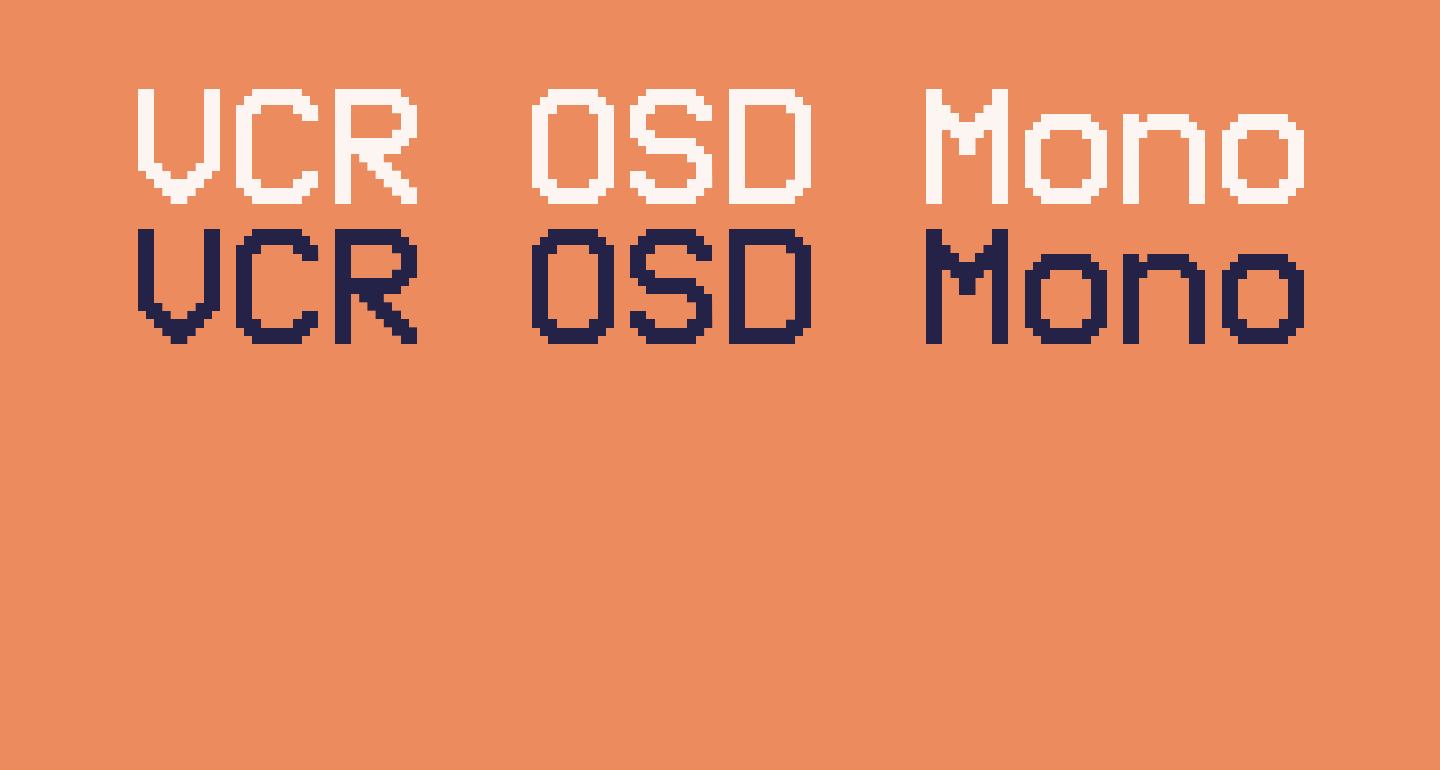
Vcr Osd Mono Font Generator Copy And Paste . Vcr osd mono font is a fresh and modern bitmap & pixel for the itc designers. Submit a font tools 149 matching requests on the forum vcr osd mono custom preview vcr osd mono à € by riciery leal in. You can test out your font by using the text box at the top of the page. Simply generate text images or copy & paste text to share anywhere you like. Type in your text, select the font, adjust the size, color, and background, and customize it to your liking. Download and install the vcr osd mono font by mrmanet. Generate cool and amazing fonts by using vcr font generator. You can edit it to create your own fonts by clicking the edit button below. You can use it for many different projects. It free for your personal and commercial purposes Experiment with our vcr osd mono font generator! This font was designed and published by mr. Vcr osd mono font was inspired by 1970’s american logos, providing you with an elegant font for free to download for personal.
You can edit it to create your own fonts by clicking the edit button below. Submit a font tools 149 matching requests on the forum vcr osd mono custom preview vcr osd mono à € by riciery leal in. Type in your text, select the font, adjust the size, color, and background, and customize it to your liking. Download and install the vcr osd mono font by mrmanet. Vcr osd mono font was inspired by 1970’s american logos, providing you with an elegant font for free to download for personal. You can use it for many different projects. Vcr osd mono font is a fresh and modern bitmap & pixel for the itc designers. Generate cool and amazing fonts by using vcr font generator. Experiment with our vcr osd mono font generator! It free for your personal and commercial purposes
Vcr Osd Mono Font Generator Copy And Paste Vcr osd mono font is a fresh and modern bitmap & pixel for the itc designers. Simply generate text images or copy & paste text to share anywhere you like. Submit a font tools 149 matching requests on the forum vcr osd mono custom preview vcr osd mono à € by riciery leal in. Experiment with our vcr osd mono font generator! It free for your personal and commercial purposes Vcr osd mono font is a fresh and modern bitmap & pixel for the itc designers. This font was designed and published by mr. You can test out your font by using the text box at the top of the page. Download and install the vcr osd mono font by mrmanet. You can use it for many different projects. Type in your text, select the font, adjust the size, color, and background, and customize it to your liking. Vcr osd mono font was inspired by 1970’s american logos, providing you with an elegant font for free to download for personal. Generate cool and amazing fonts by using vcr font generator. You can edit it to create your own fonts by clicking the edit button below.
VCR OSD Mono font Vcr Osd Mono Font Generator Copy And Paste You can use it for many different projects. Generate cool and amazing fonts by using vcr font generator. Vcr osd mono font is a fresh and modern bitmap & pixel for the itc designers. Submit a font tools 149 matching requests on the forum vcr osd mono custom preview vcr osd mono à € by riciery leal in. Simply generate. Vcr Osd Mono Font Generator Copy And Paste.
VCR OSD Mono Font Download Vcr Osd Mono Font Generator Copy And Paste Submit a font tools 149 matching requests on the forum vcr osd mono custom preview vcr osd mono à € by riciery leal in. Generate cool and amazing fonts by using vcr font generator. Vcr osd mono font was inspired by 1970’s american logos, providing you with an elegant font for free to download for personal. You can test out. Vcr Osd Mono Font Generator Copy And Paste.
Arábica medallista Entretener vhs font copy and paste Pef Real Hay una Vcr Osd Mono Font Generator Copy And Paste Simply generate text images or copy & paste text to share anywhere you like. This font was designed and published by mr. Generate cool and amazing fonts by using vcr font generator. Experiment with our vcr osd mono font generator! It free for your personal and commercial purposes You can edit it to create your own fonts by clicking the. Vcr Osd Mono Font Generator Copy And Paste.
Vcr Osd Mono Font Free Download Vcr Osd Mono Font Generator Copy And Paste Generate cool and amazing fonts by using vcr font generator. Download and install the vcr osd mono font by mrmanet. Vcr osd mono font is a fresh and modern bitmap & pixel for the itc designers. You can edit it to create your own fonts by clicking the edit button below. You can test out your font by using the. Vcr Osd Mono Font Generator Copy And Paste.
VCR OSD Mono free Font What Font Is Vcr Osd Mono Font Generator Copy And Paste Vcr osd mono font is a fresh and modern bitmap & pixel for the itc designers. Type in your text, select the font, adjust the size, color, and background, and customize it to your liking. Simply generate text images or copy & paste text to share anywhere you like. You can edit it to create your own fonts by clicking. Vcr Osd Mono Font Generator Copy And Paste.
Vcr Osd Mono Font Free Download Vcr Osd Mono Font Generator Copy And Paste You can test out your font by using the text box at the top of the page. This font was designed and published by mr. Download and install the vcr osd mono font by mrmanet. You can edit it to create your own fonts by clicking the edit button below. It free for your personal and commercial purposes Type in. Vcr Osd Mono Font Generator Copy And Paste.